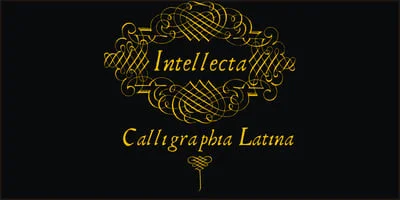
CalligraphiaLatina Font
CalligraphiaLatina Font is perfect for classical design applications including academic institutions, historical manuscripts, scholarly publications, museum exhibitions, classical studies materials, university branding, formal documents, and traditional ceremonial invitations. This elegant typeface captures the timeless beauty of ancient Roman calligraphy through authentic letterforms that honor classical scholarship and Latin literary traditions.
What makes CalligraphiaLatina Font exciting is its authentic recreation of classical Latin script with historically accurate letterforms that embody the intellectual heritage and cultural sophistication of ancient Roman civilization. The font features traditional calligraphic proportions and classical flourishes that mirror the elegant penmanship of Roman scribes and medieval scholars. Its scholarly character appeals to institutions that value academic excellence, cultural heritage, and classical education.
The CalligraphiaLatina Font family includes various scholarly styles such as Regular, Italic, Bold, and ornamental alternates with traditional Latin ligatures that enhance the classical aesthetic. These authentic options provide comprehensive design solutions for creating genuine academic brand identities that celebrate classical learning and intellectual tradition.
This distinguished classical typeface brings authentic Roman heritage to contemporary design projects. Educational institutions and cultural organizations choose CalligraphiaLatina Font for its exceptional ability to communicate scholarly authority and classical sophistication. The font's Latin script inspiration makes it perfect for universities, classical studies programs, and cultural institutions that want to convey intellectual tradition and ancient wisdom. Its elegant character ensures memorable institutional recognition while maintaining the authentic aesthetic that defines exceptional classical scholarly design work.